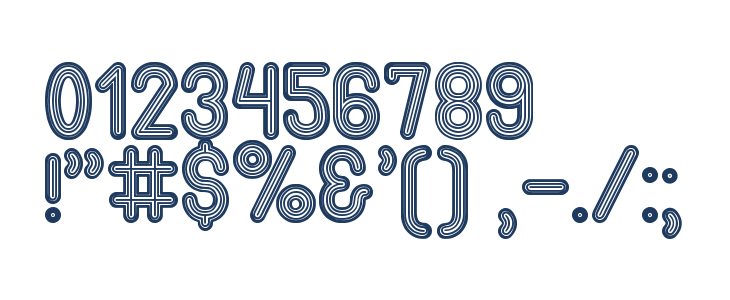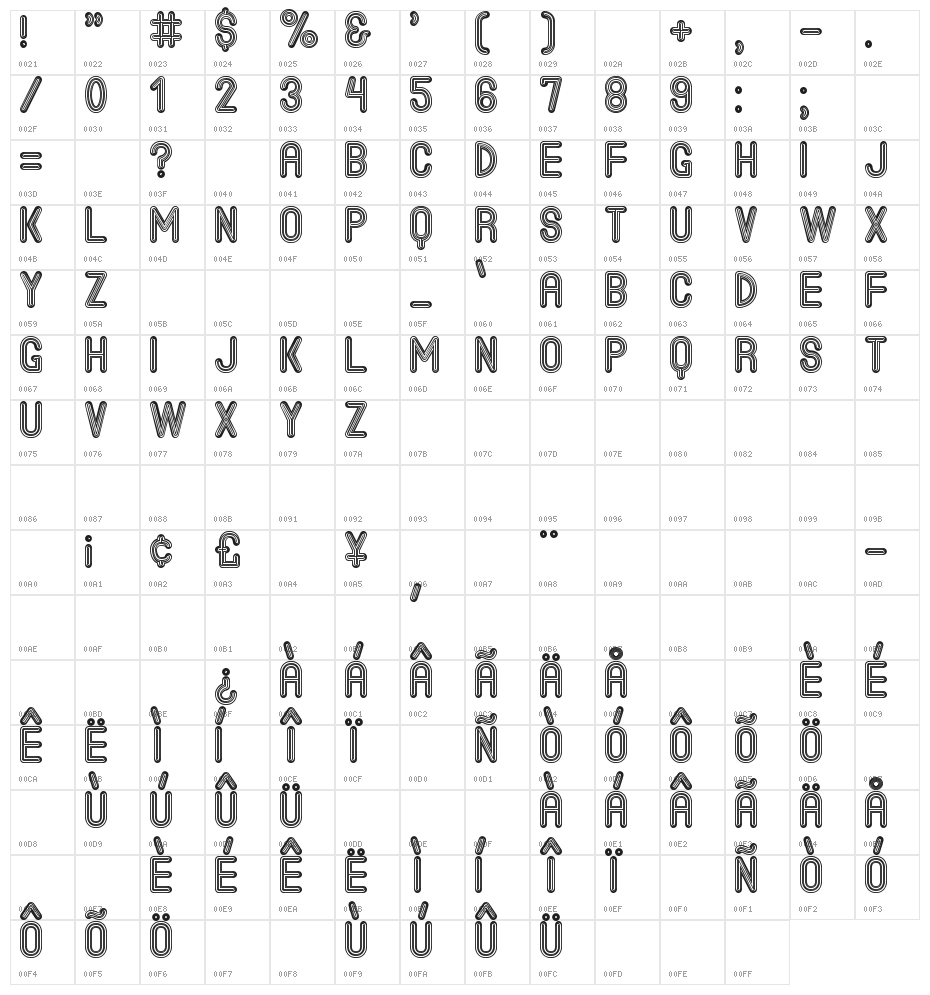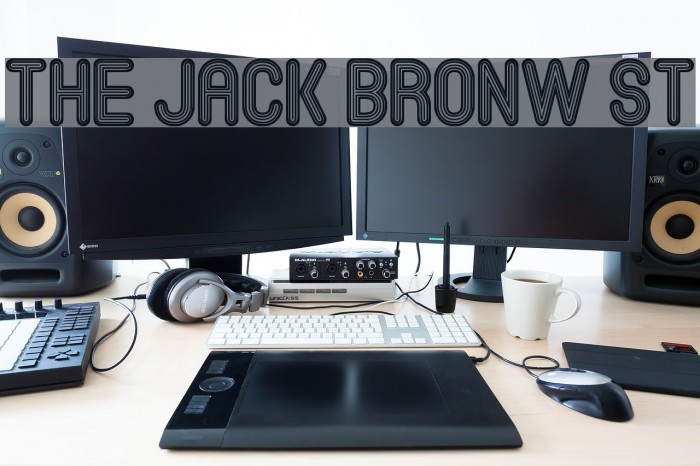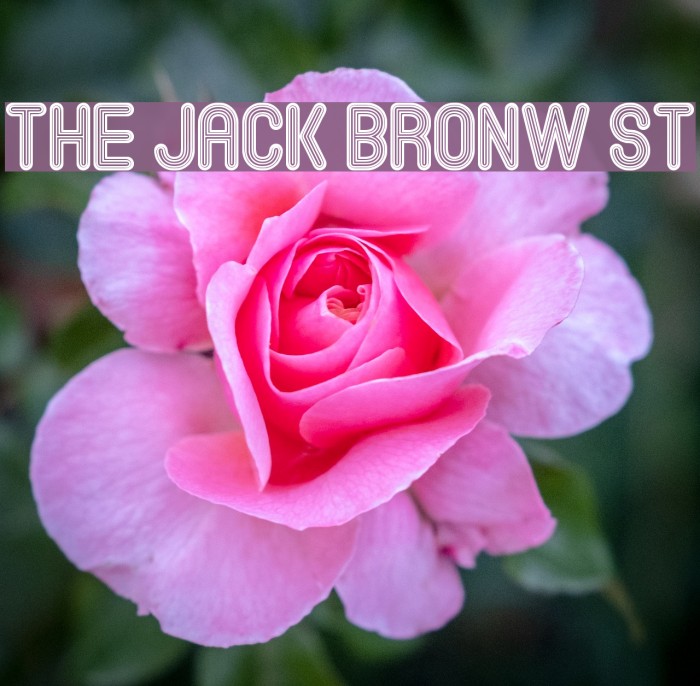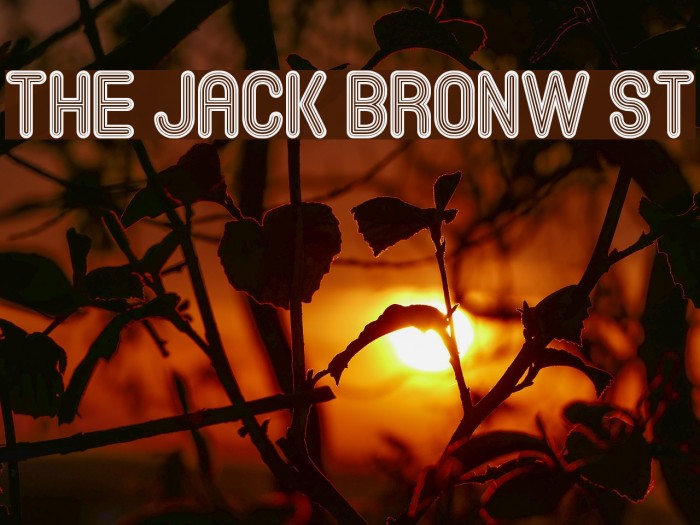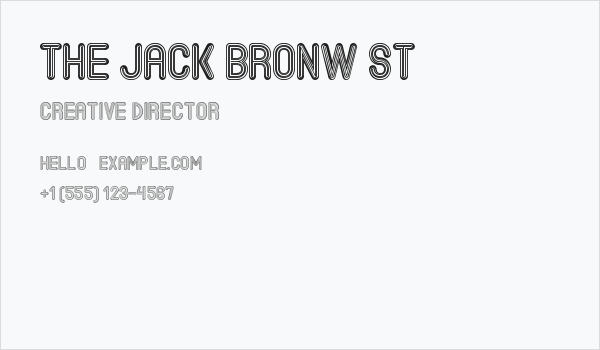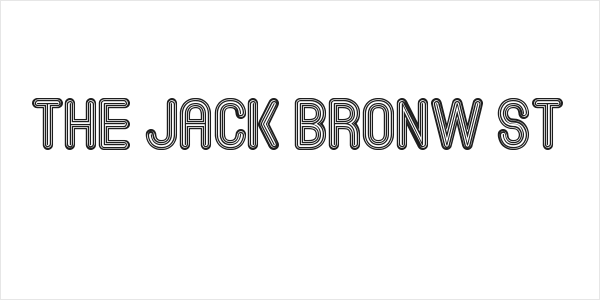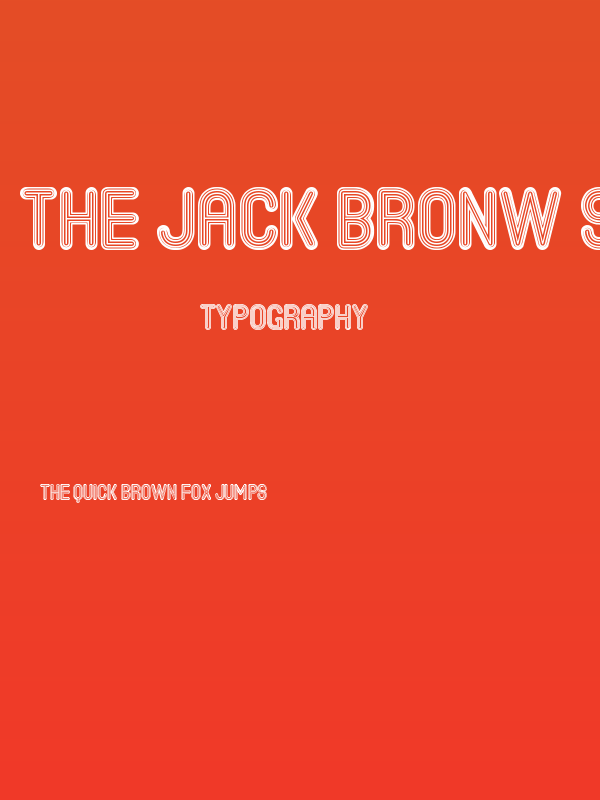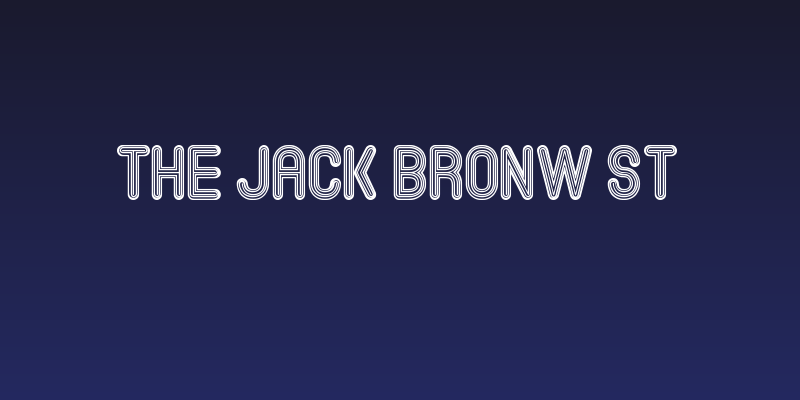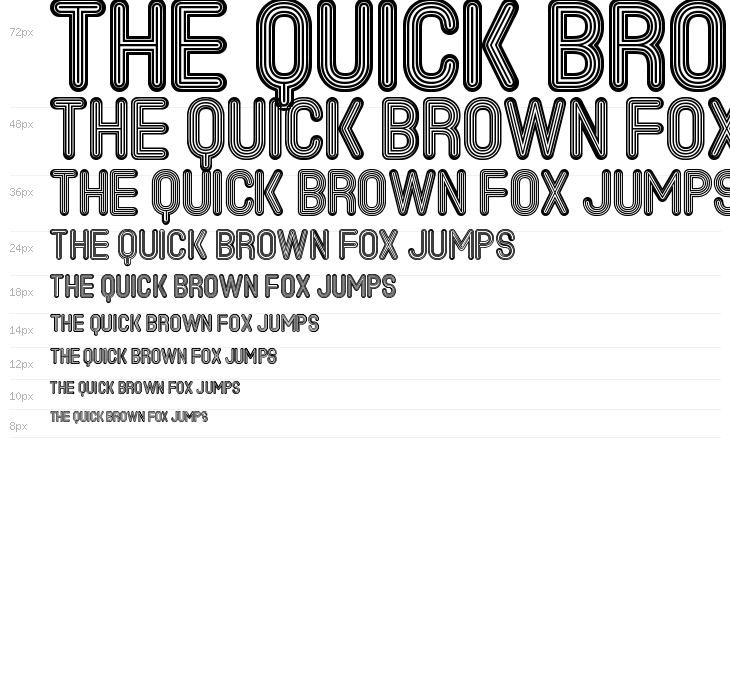
The Jack Bronw St Font
The Jack Bronw St Description
This font features a bold, decorative style with a unique layered outline effect. Each character is designed with multiple concentric lines, creating a striking visual impact. The uppercase and lowercase letters maintain a consistent width, while the numerals and special characters follow the same design principle. The font's geometric structure and uniform line thickness give it a modern and playful appearance, making it suitable for eye-catching designs. Its distinct style is ideal for projects that require a bold statement, such as posters, headlines, and branding materials.